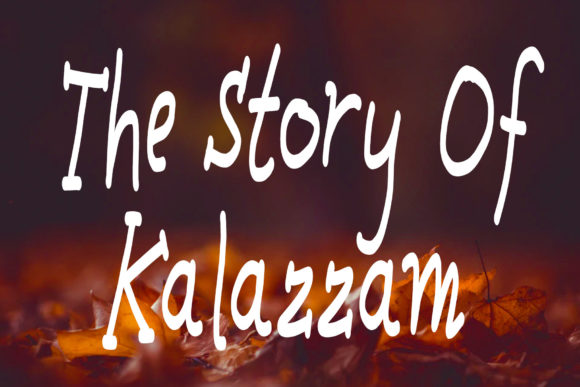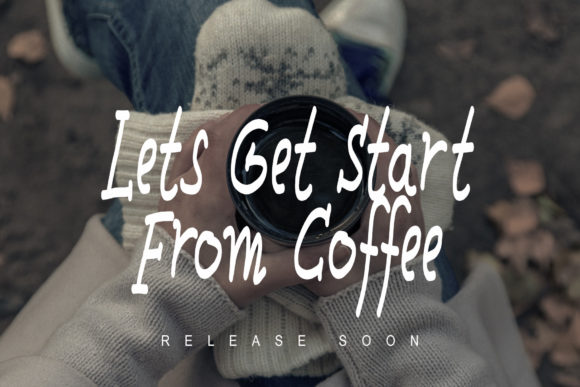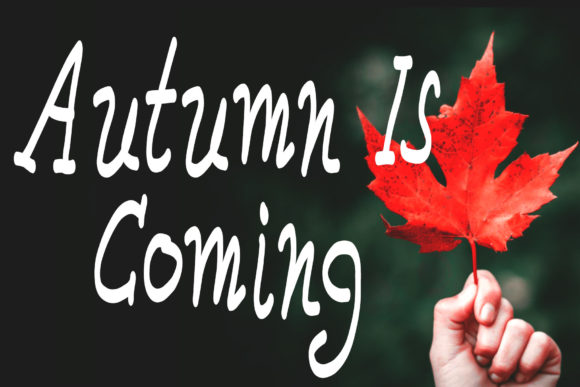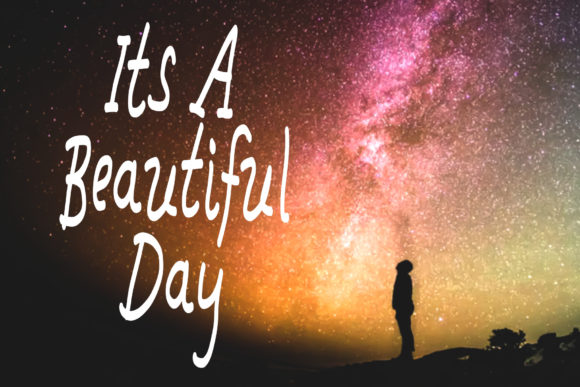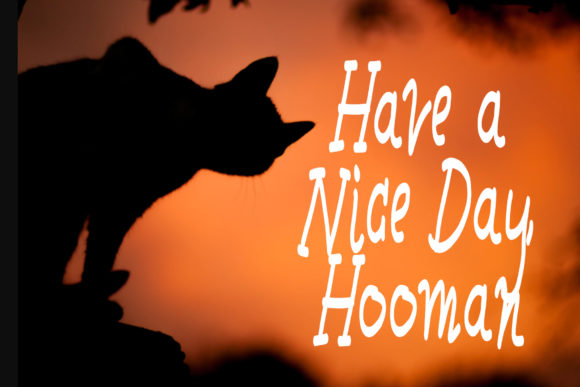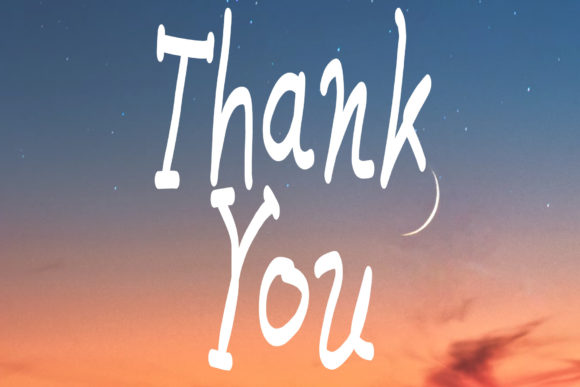
Funky Stickers Font: Elevate Your Crafting Ideas with a Cool and Friendly Display Font
Are you a designer, crafter, or DIY enthusiast looking for a unique and playful font to add a personal touch to your creations? Look no further than Funky Stickers, a cool and friendly display font that’s perfect for a wide range of crafting ideas. From cards and invitations to branding, labels, and more, Funky Stickers is the perfect addition to take your projects to the next level.
What is Funky Stickers Font?
Funky Stickers is a display font designed to add a fun and playful touch to your designs. Its cool and friendly vibe makes it perfect for crafters, designers, and DIY enthusiasts who want to create unique and eye-catching projects. The font’s playful and energetic feel is sure to inspire creativity and add a personal touch to your creations.
What Can I Use Funky Stickers Font For?
Funky Stickers font is versatile and can be used for a wide range of crafting ideas, including:
- Cards and Invitations: Add a personal touch to your greeting cards, invitations, and party decorations with Funky Stickers font.
- Branding and Packaging: Use Funky Stickers font to create unique and eye-catching branding and packaging for your products.
- Labels and Signs: Create fun and colorful labels and signs for your craft projects, events, or business.
- Digital Art and Illustrations: Add Funky Stickers font to your digital art and illustrations for a playful and creative touch.
Why Choose Funky Stickers Font?
There are many reasons why Funky Stickers font is a great choice for your crafting ideas:
- Unique and Playful: Funky Stickers font has a unique and playful vibe that’s sure to make your projects stand out.
- Easy to Read: Despite its playful feel, Funky Stickers font is easy to read and understand, making it perfect for a wide range of applications.
- Versatile: Funky Stickers font can be used for a wide range of crafting ideas, from cards and invitations to branding and packaging.
- High-Quality: Funky Stickers font is a high-quality font that’s designed to deliver crisp and clear results.
Tips and Tricks for Using Funky Stickers Font
Here are some tips and tricks for getting the most out of Funky Stickers font:
- Experiment with Colors: Funky Stickers font looks great in a wide range of colors, so don’t be afraid to experiment and find the perfect color for your project.
- Mix and Match: Combine Funky Stickers font with other fonts and design elements to create a unique and eye-catching design.
- Pay Attention to Size: Make sure to adjust the font size to suit your project, as Funky Stickers font can be used for both large and small text.
Funky Stickers font is a cool and friendly display font that’s perfect for a wide range of crafting ideas. Its unique and playful vibe makes it a great choice for designers, crafters, and DIY enthusiasts who want to add a personal touch to their creations. With its versatility, high-quality design, and ease of use, Funky Stickers font is sure to become a favorite in your font library.